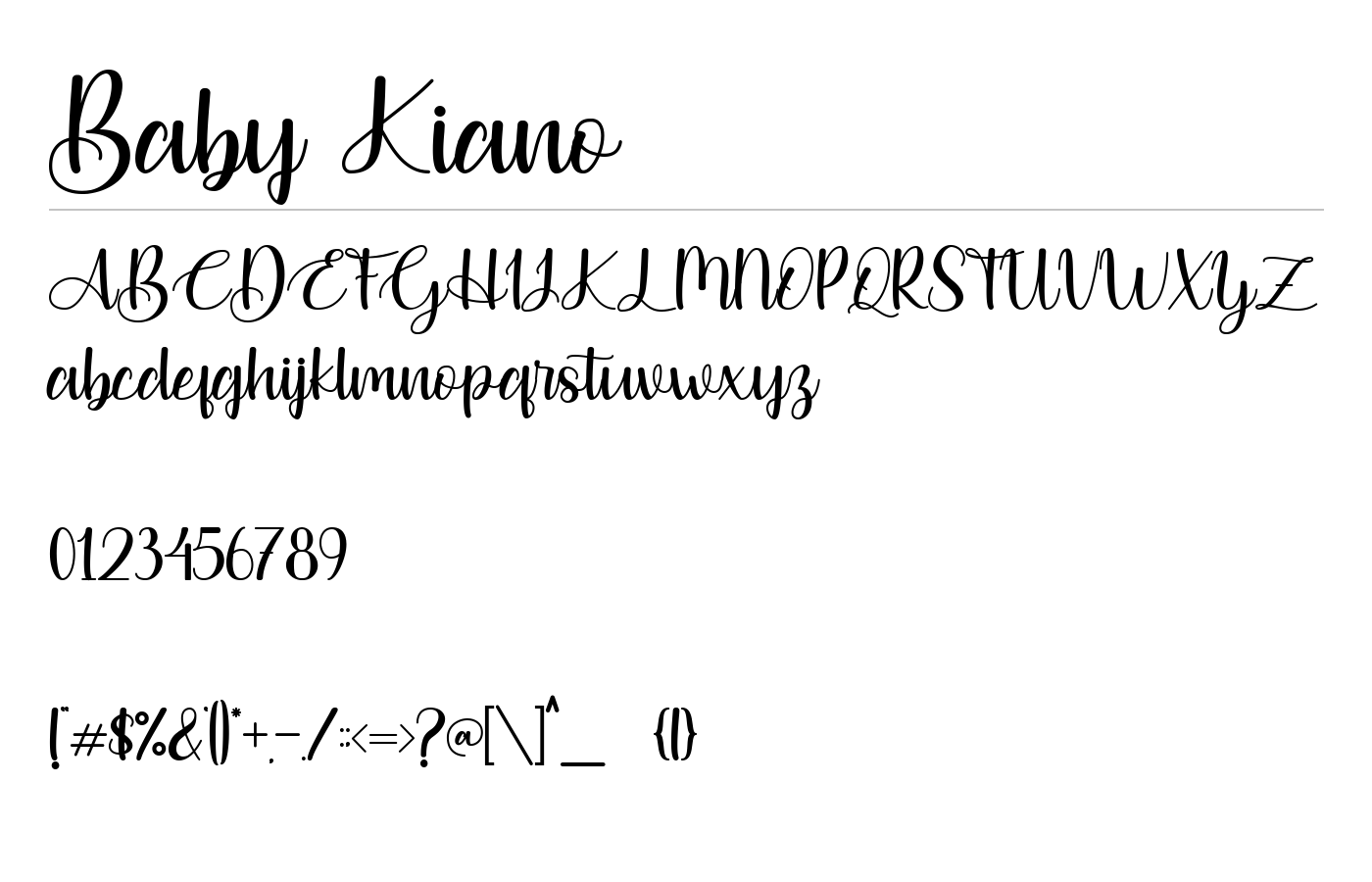
Baby Kiano is a lively and elegant script font with a playful, handwritten feel, featuring smooth, flowing strokes and uneven weight that add personality and charm. Its tall, slender letterforms and distinctive curls make it ideal for creative branding, invitations, and stylish headlines where a sophisticated yet approachable touch is desired. This font works best in designs that need a warm, handcrafted look without sacrificing readability.
Baby Kiano Font
About Baby Kiano Font
| Font family | Baby Kiano Font |
| Designer | JunCreative (Muhamad Junaid) @mjart96 |